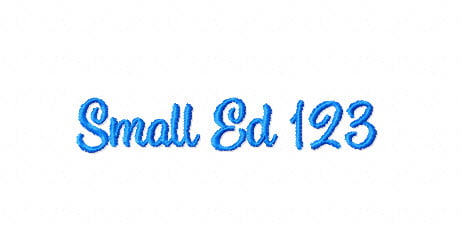
Ed’s Market Font (Small)
This highly legible font stitches very smoothly. It’s upward strokes are helpful in that the letters are space savers; this is important when you have limited space for your wording on a label etc. Comes with bx format.
Average capital letter height: 0.6″
Stitch count varies for each letter. Capital A = 483